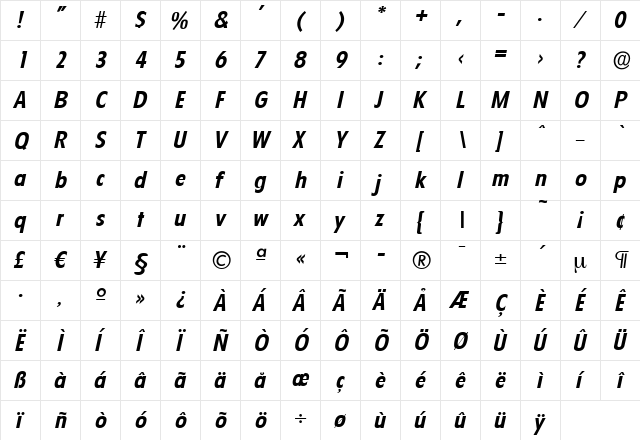
LuisBecker Bold Italic Font Preview
Design Context for LuisBecker Typeface
LuisBecker takes a measured approach to typography — its balanced proportions and neutral character make it a reliable workhorse for both digital and print work. The dynamic lean of this cut emphasises speed and emphasis in any layout. The heavy weight commands attention and anchors typographic hierarchies.
Pro Tip: Try LuisBecker for annotation and caption copy alongside an upright companion — the contrast in angle creates a dynamic but ordered typographic system.